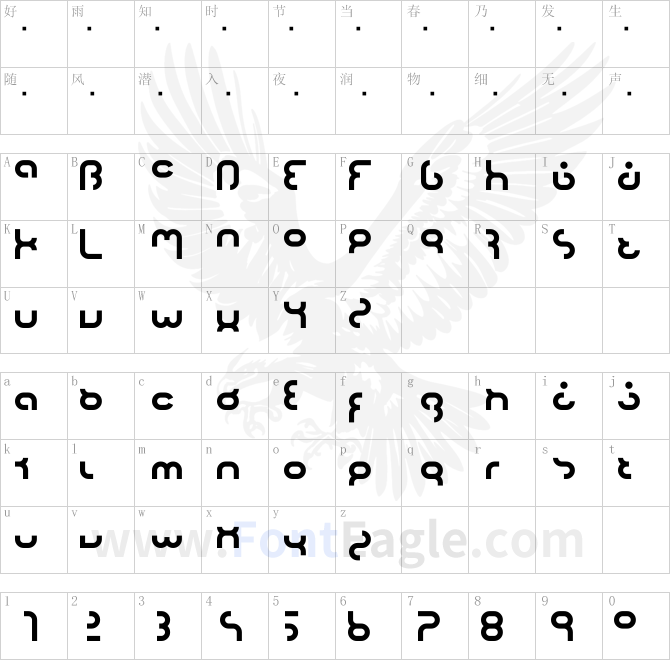
- Font name:hyper 2000
- Font Subfamily ID:hyper 2000
- Font Full Name:hyper 2000
- Postscript:hyper 2000
- Font Copyright:(C) 1999 Takatoshi “takker” Katoh